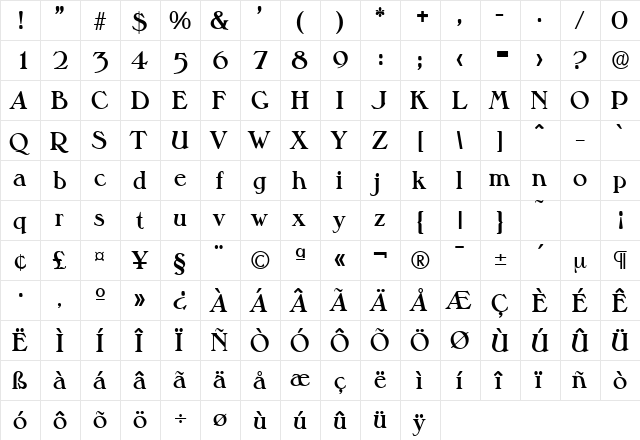
Melbourne-Serial Bold
Design Context for Melbourne-Serial Typeface
Melbourne-Serial is a composed and adaptable typeface that performs quietly and consistently across a wide range of design contexts. The heavy weight commands attention and anchors typographic hierarchies.